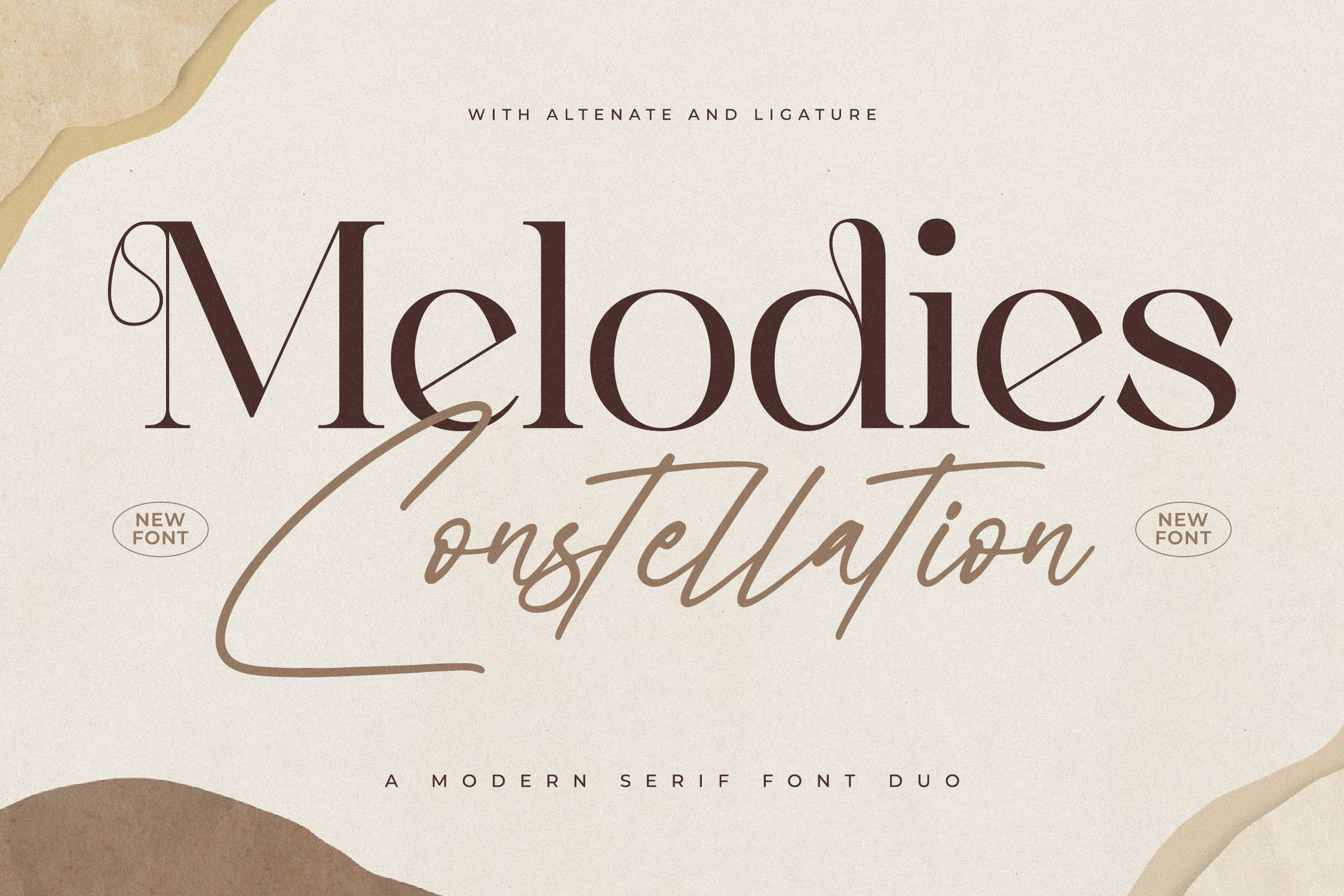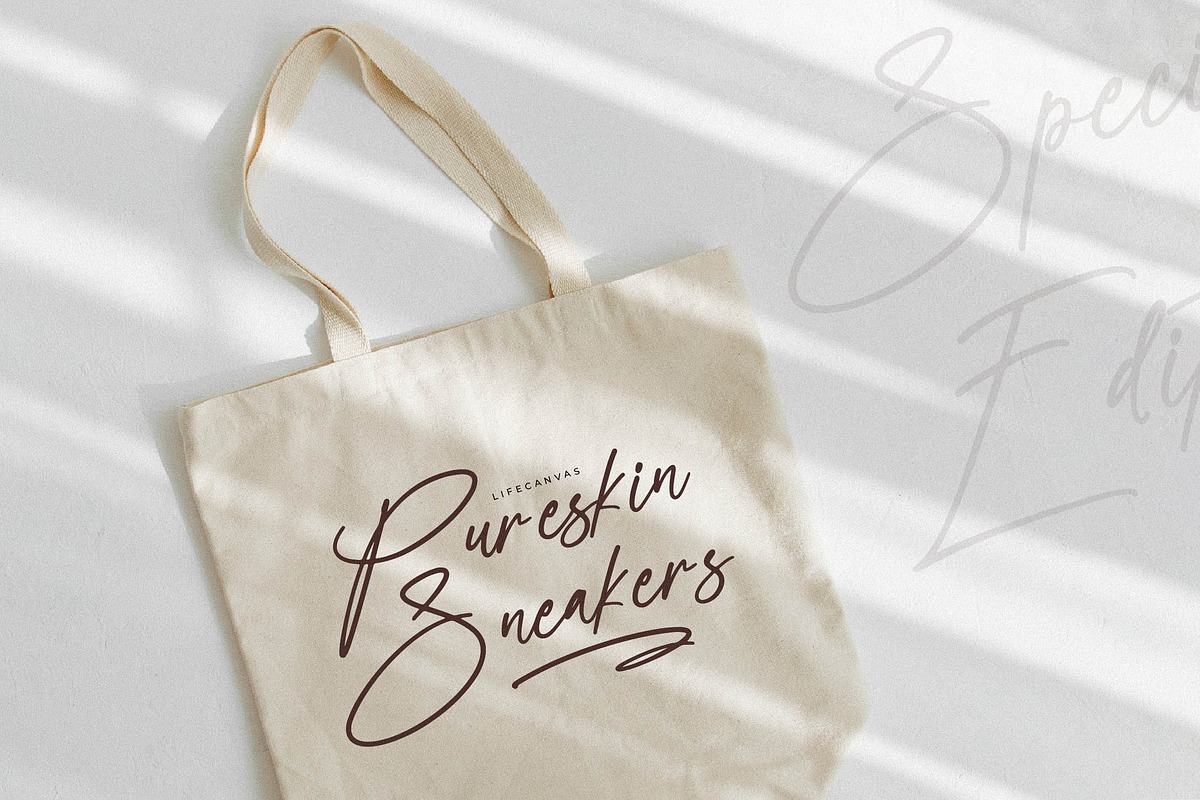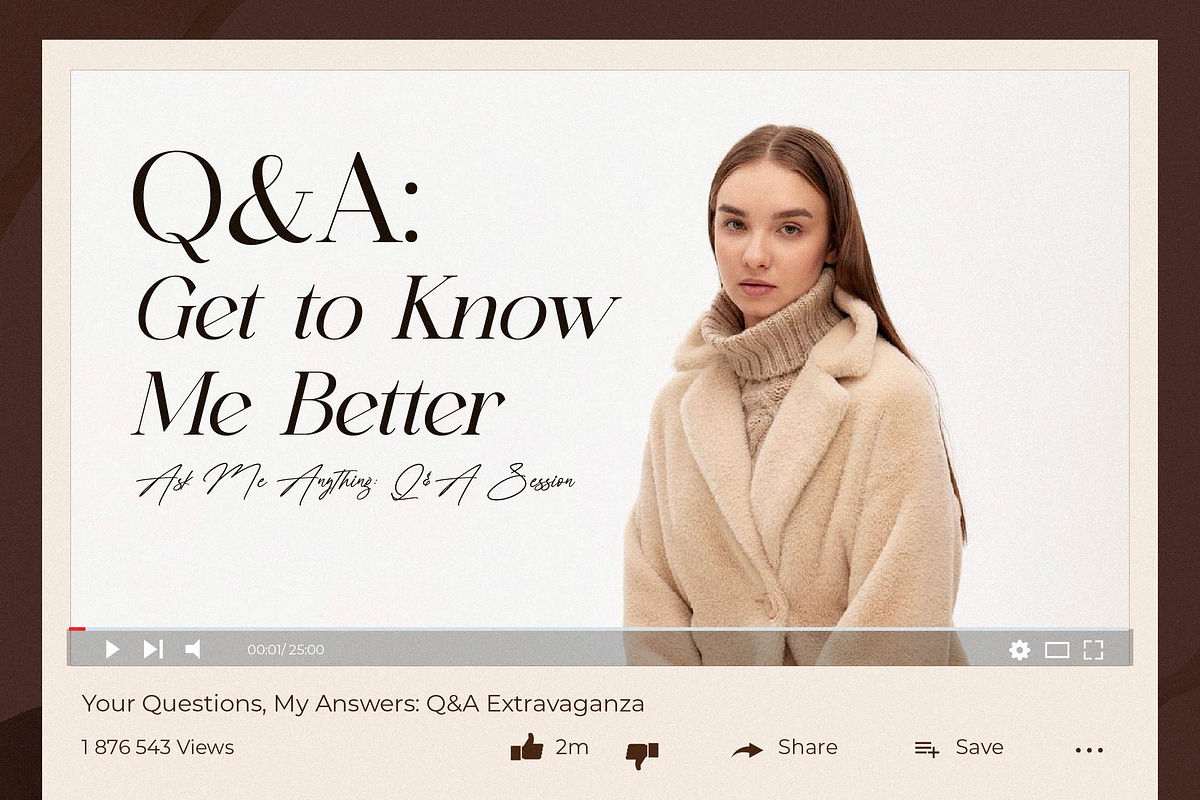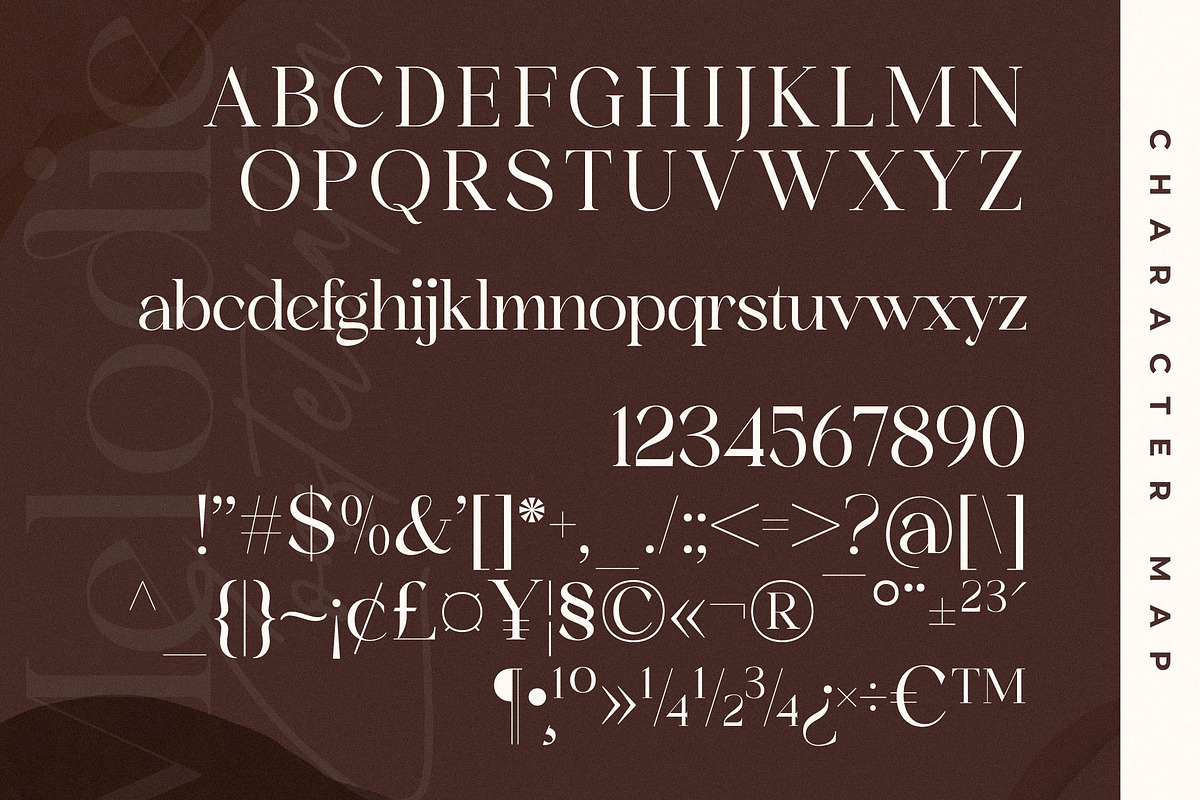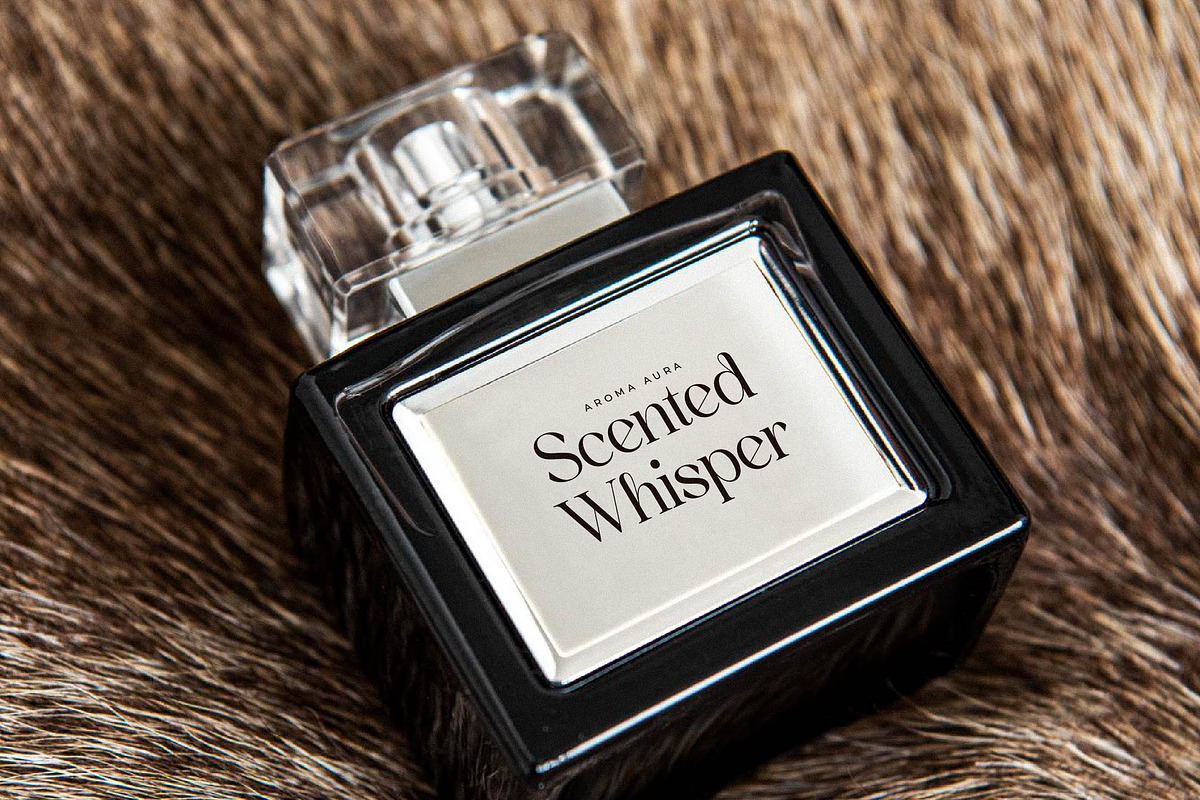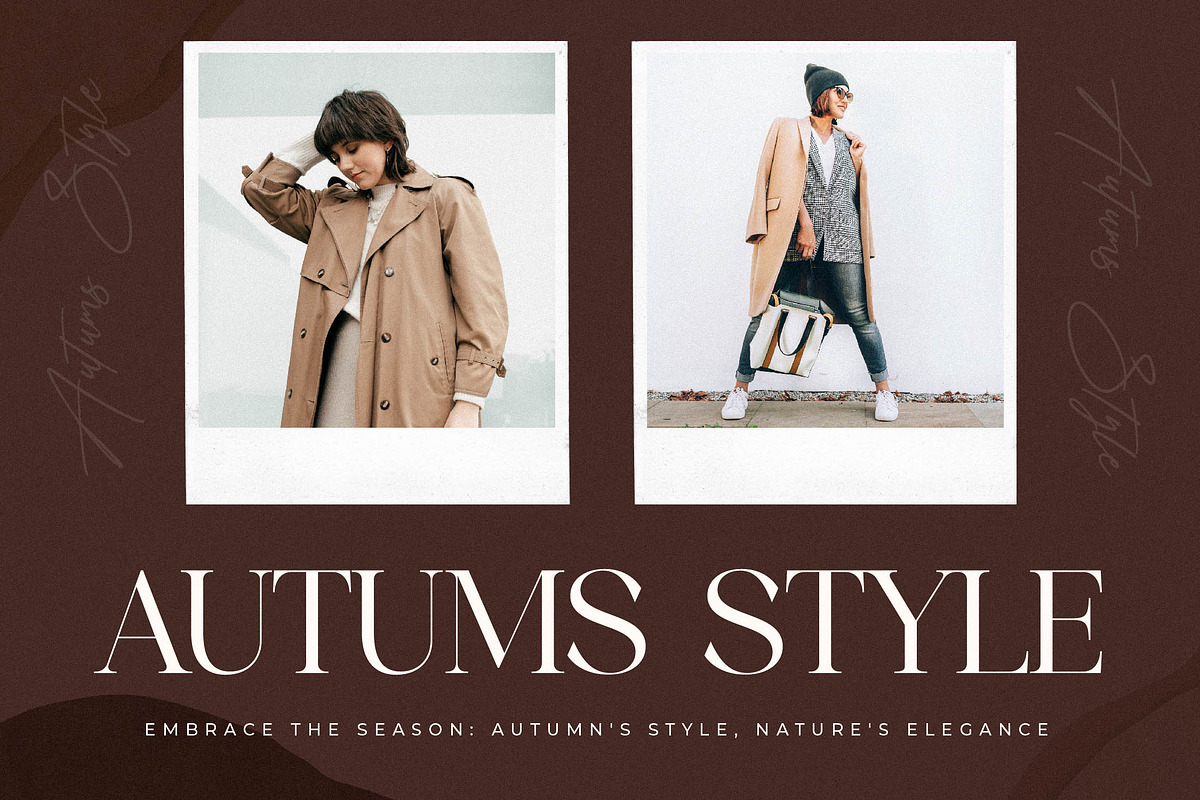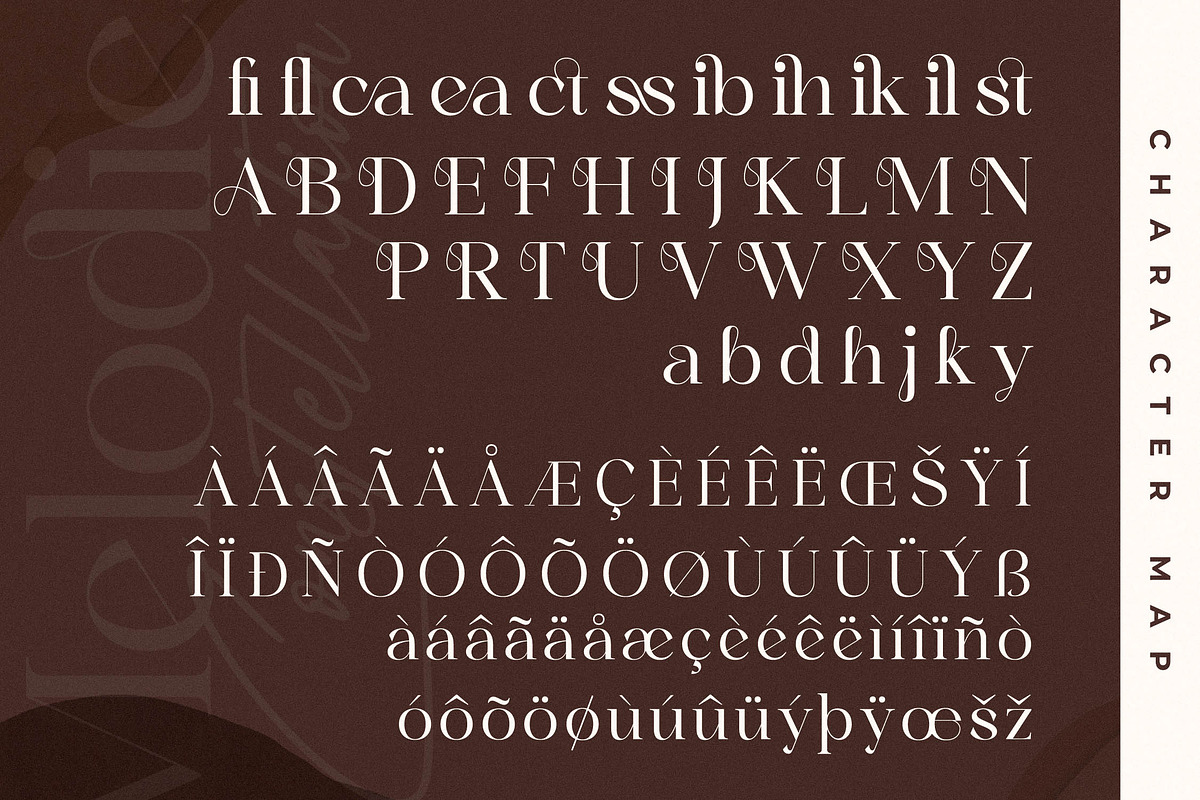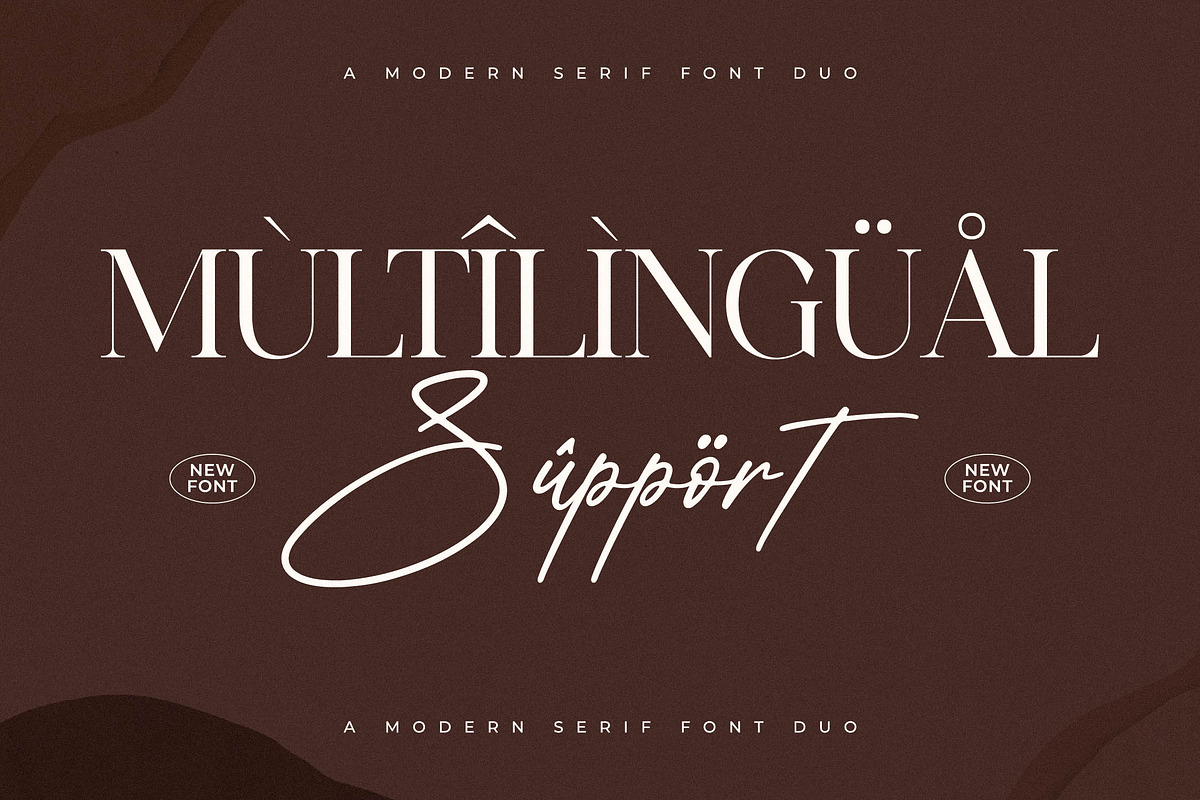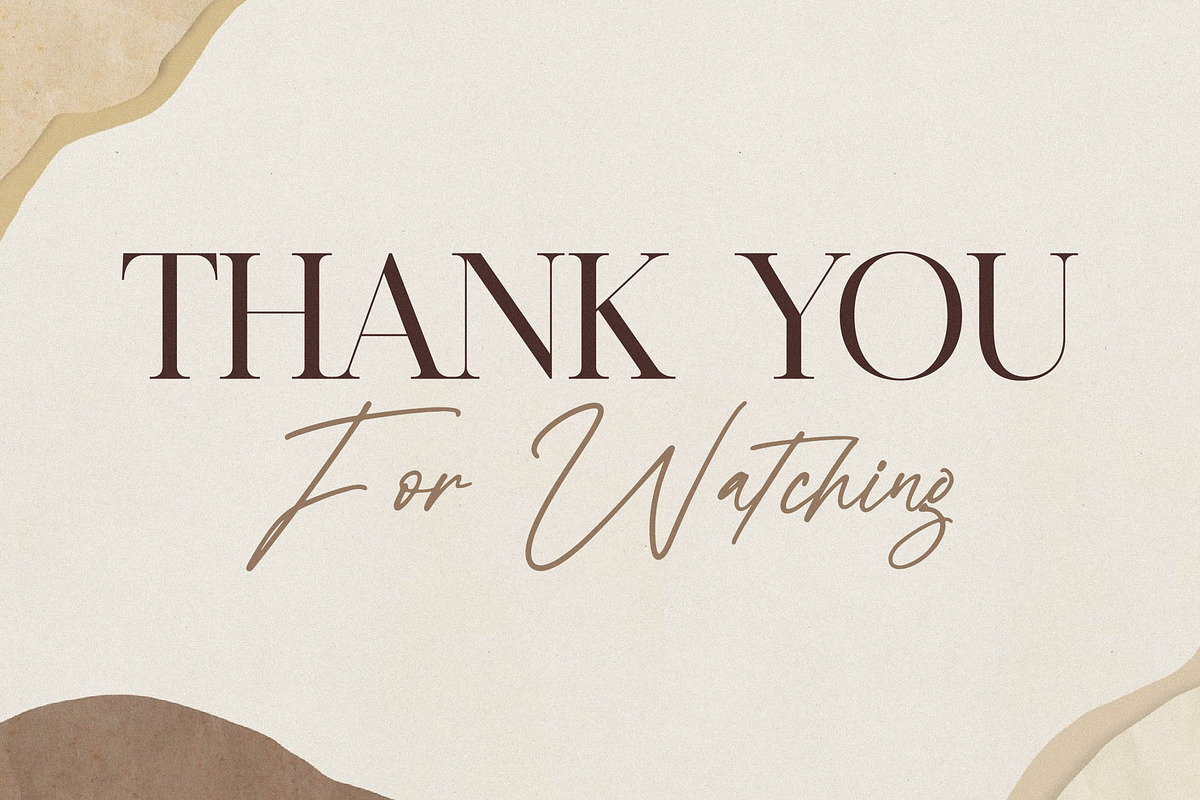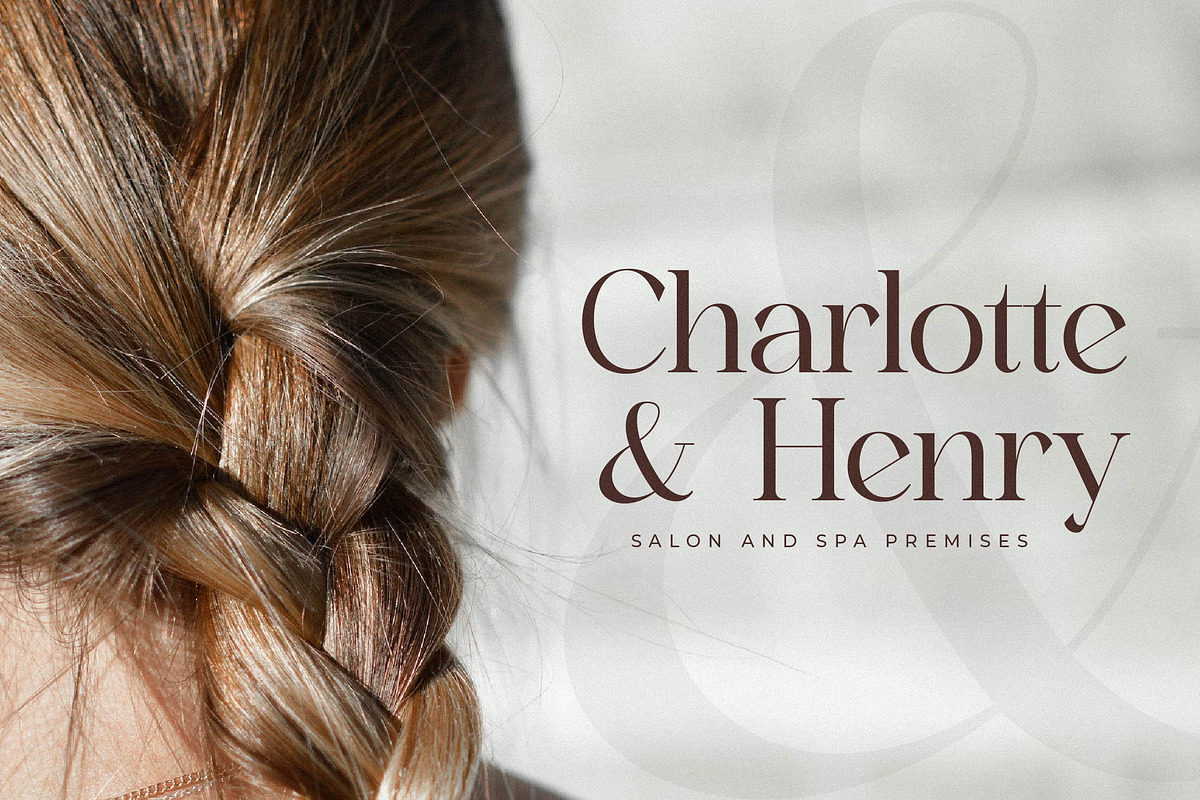
Melodies Constellation Font Duo
Proudly present Melodies Constellation Font Duo , created by Storytype, A serif and script typeface that has own unique style & modern look. This typeface is perfect for an elegant & luxury logo, book or movie title design, fashion brand, magazine, clothes, lettering, quotes, and so much more.